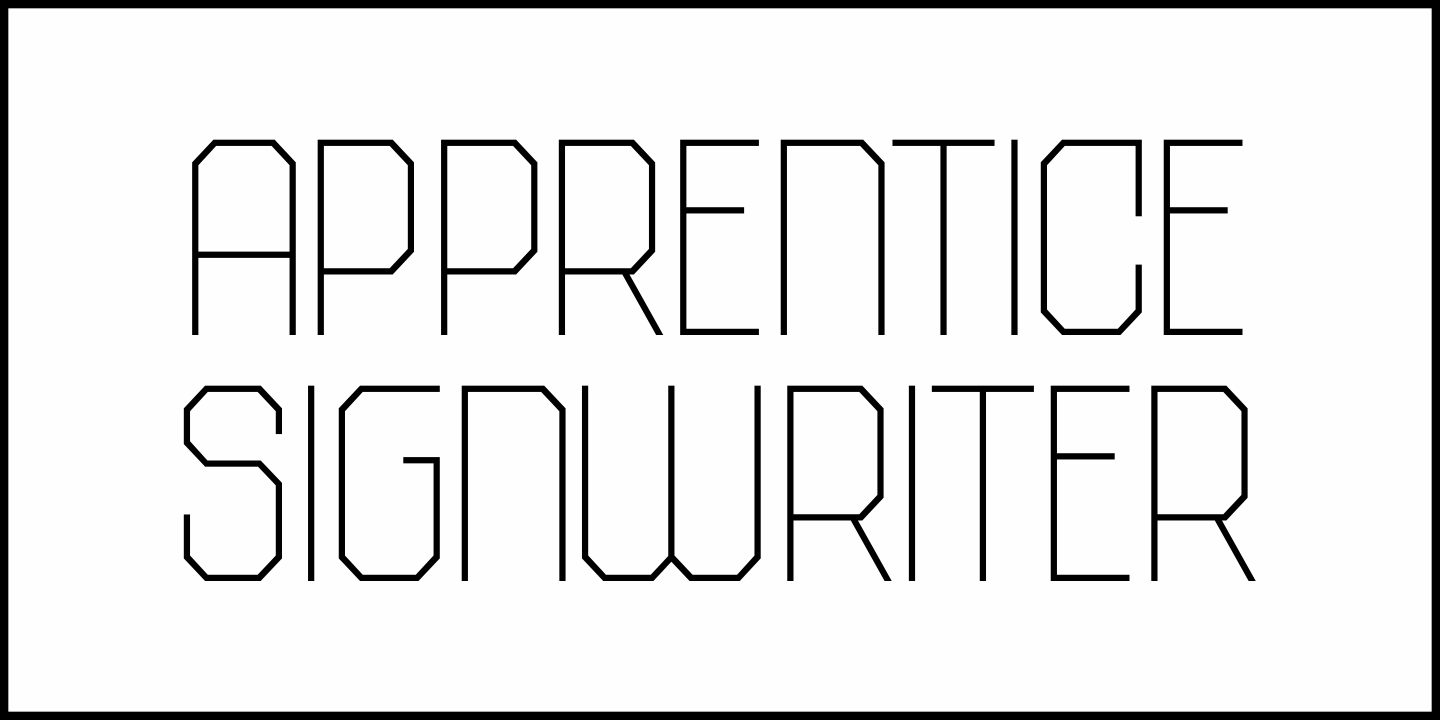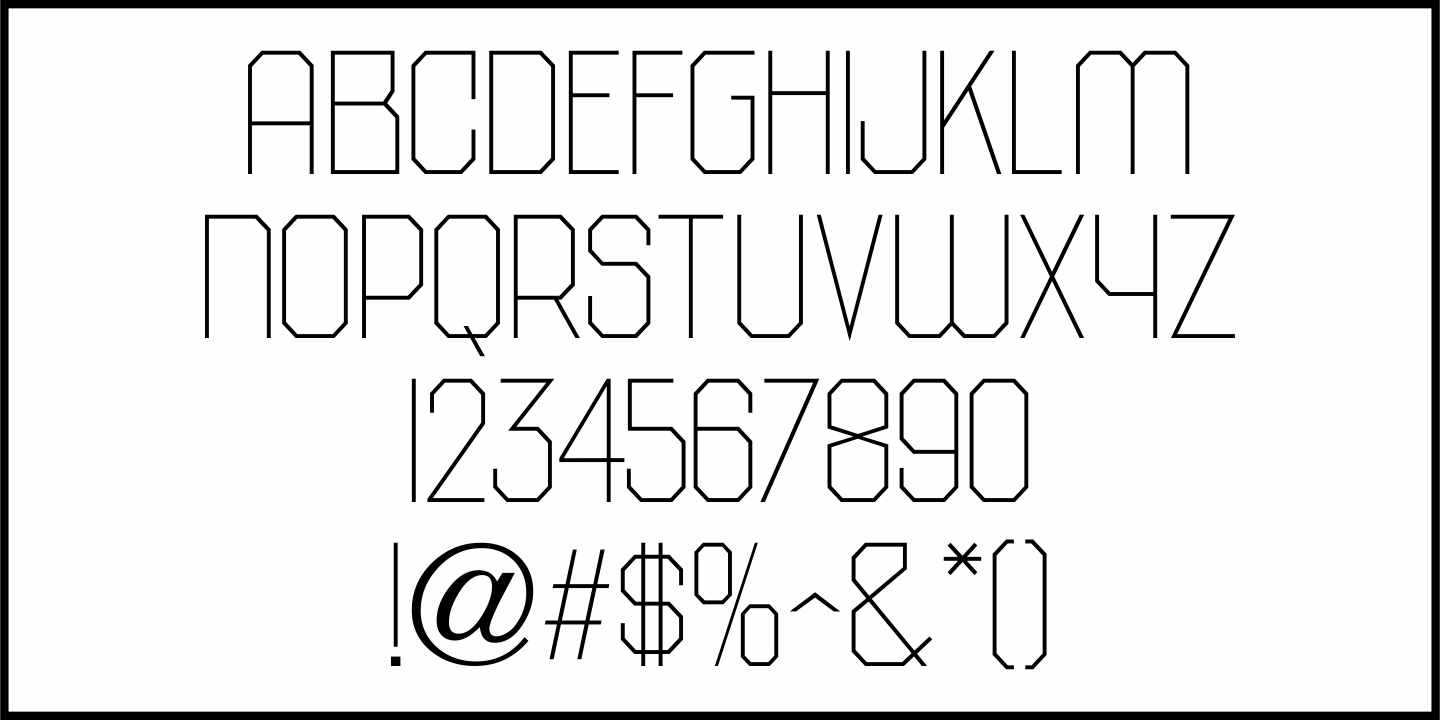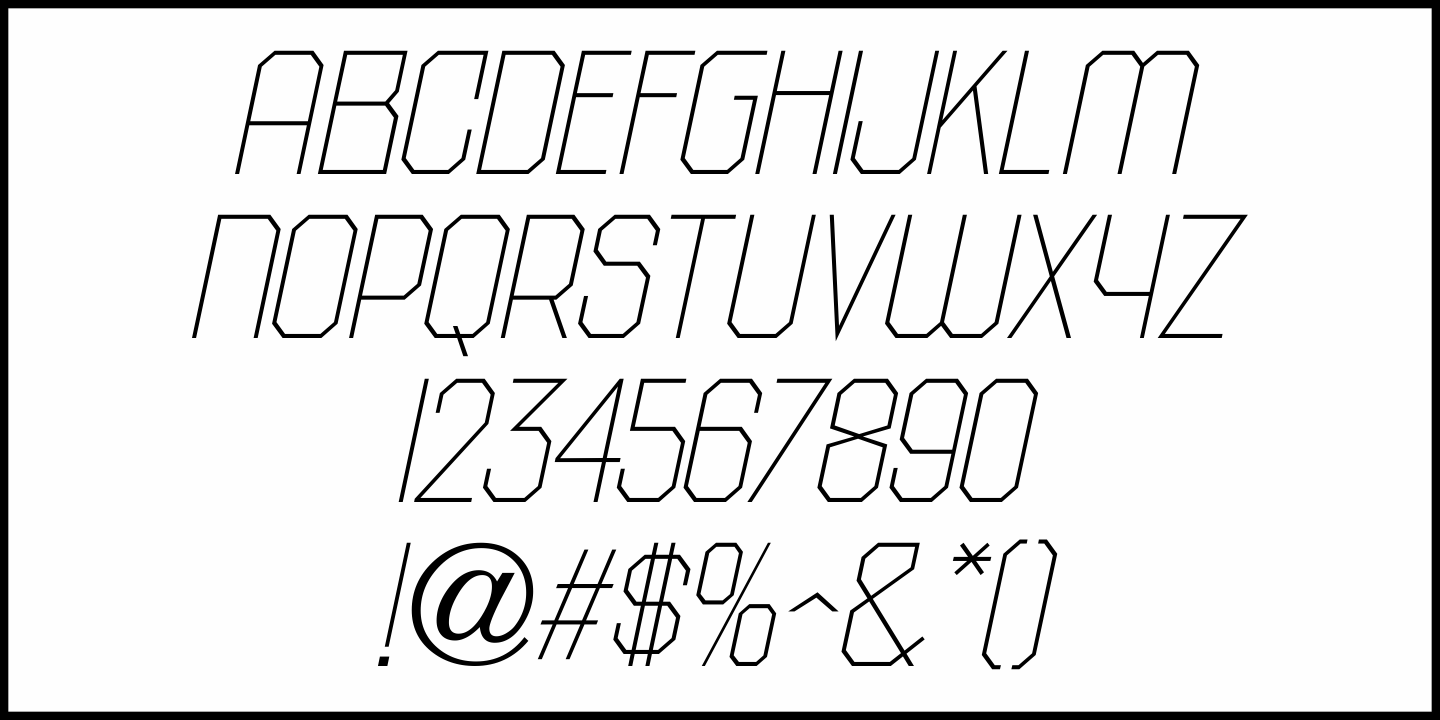
Apprentice Signwriter
Inside the book “New Zanerian Alphabets” (1900) by C.P. Zaner is a set of thin monoline letters and numbers along with many chamfered characters offered as alternates to the main design.
This simple, but effective type style has been redrawn digitally and is now available as Apprentice Signwriter JNL in both regular and oblique versions.